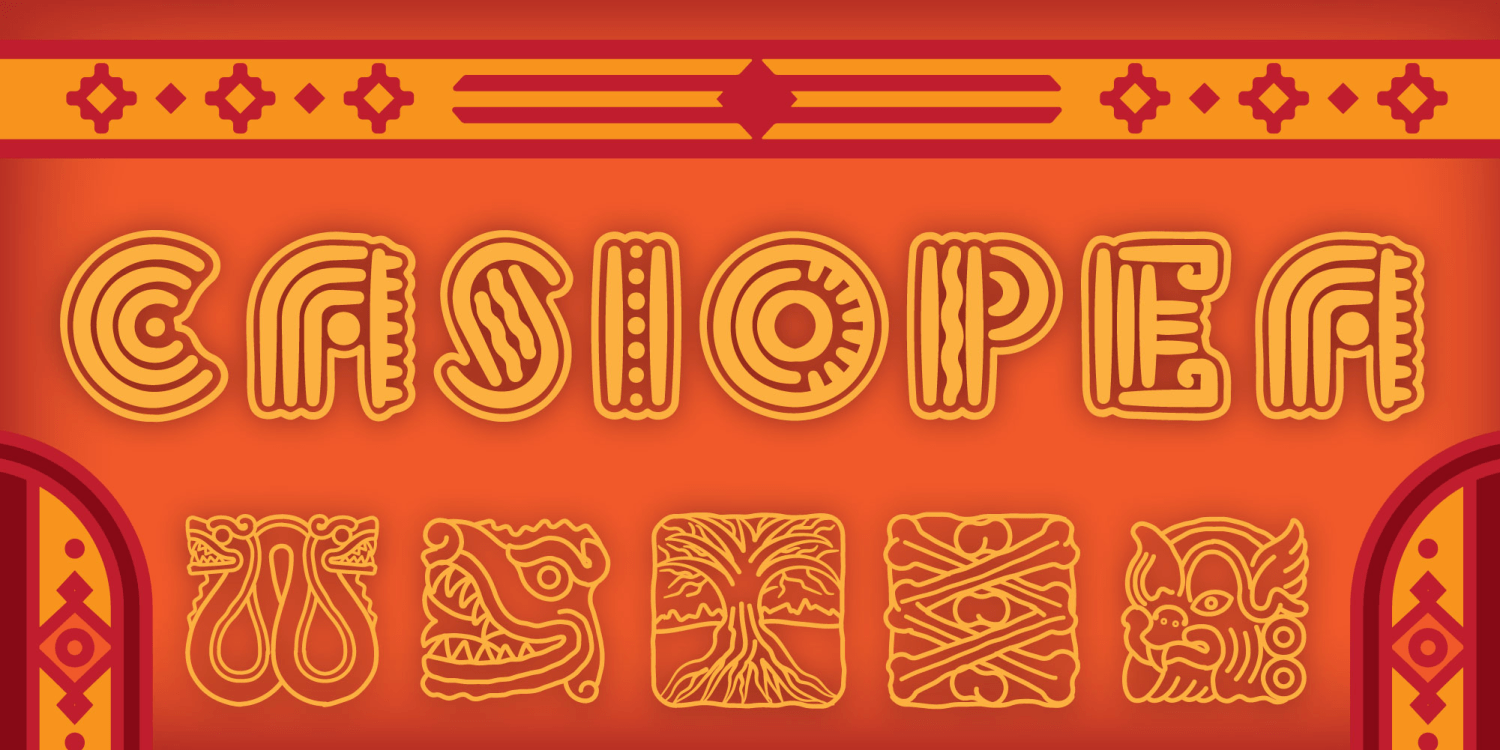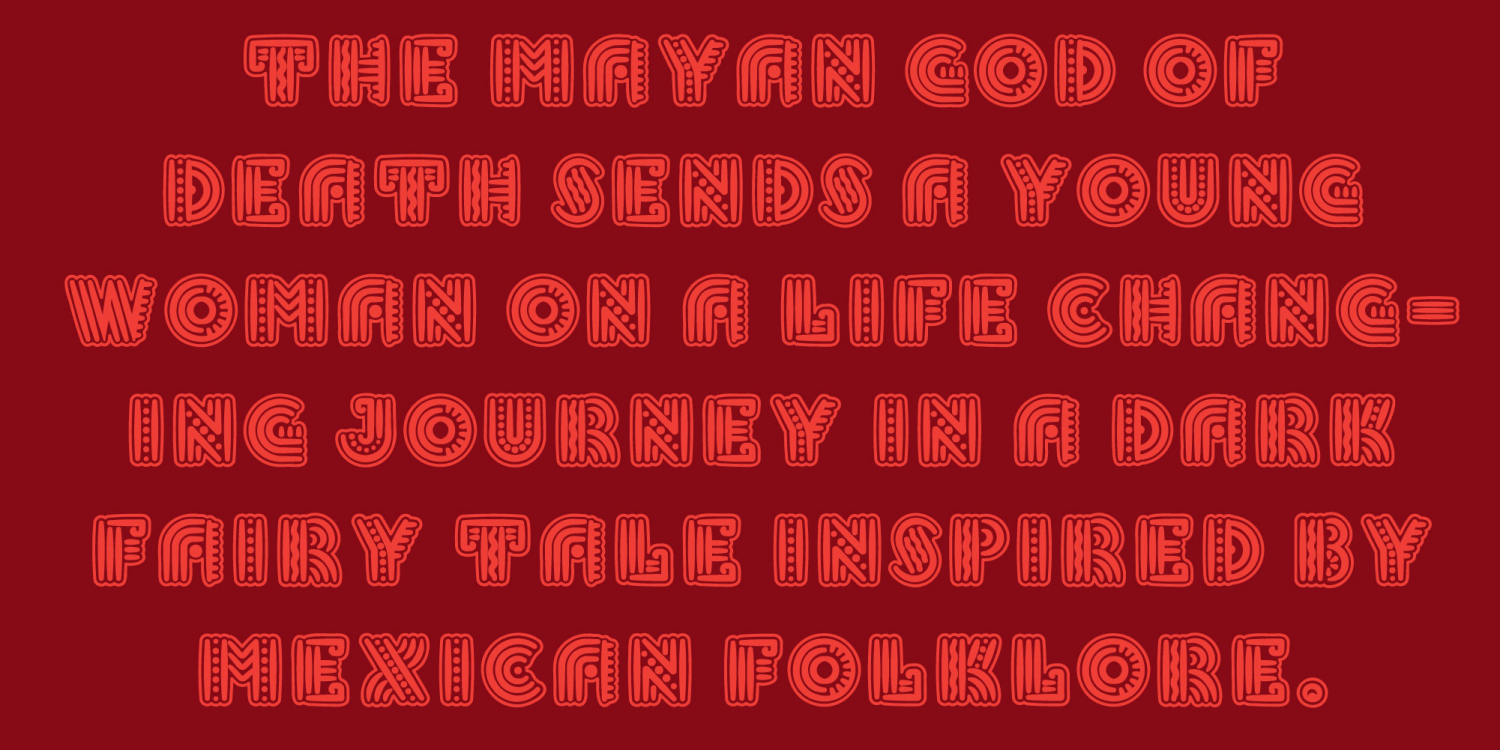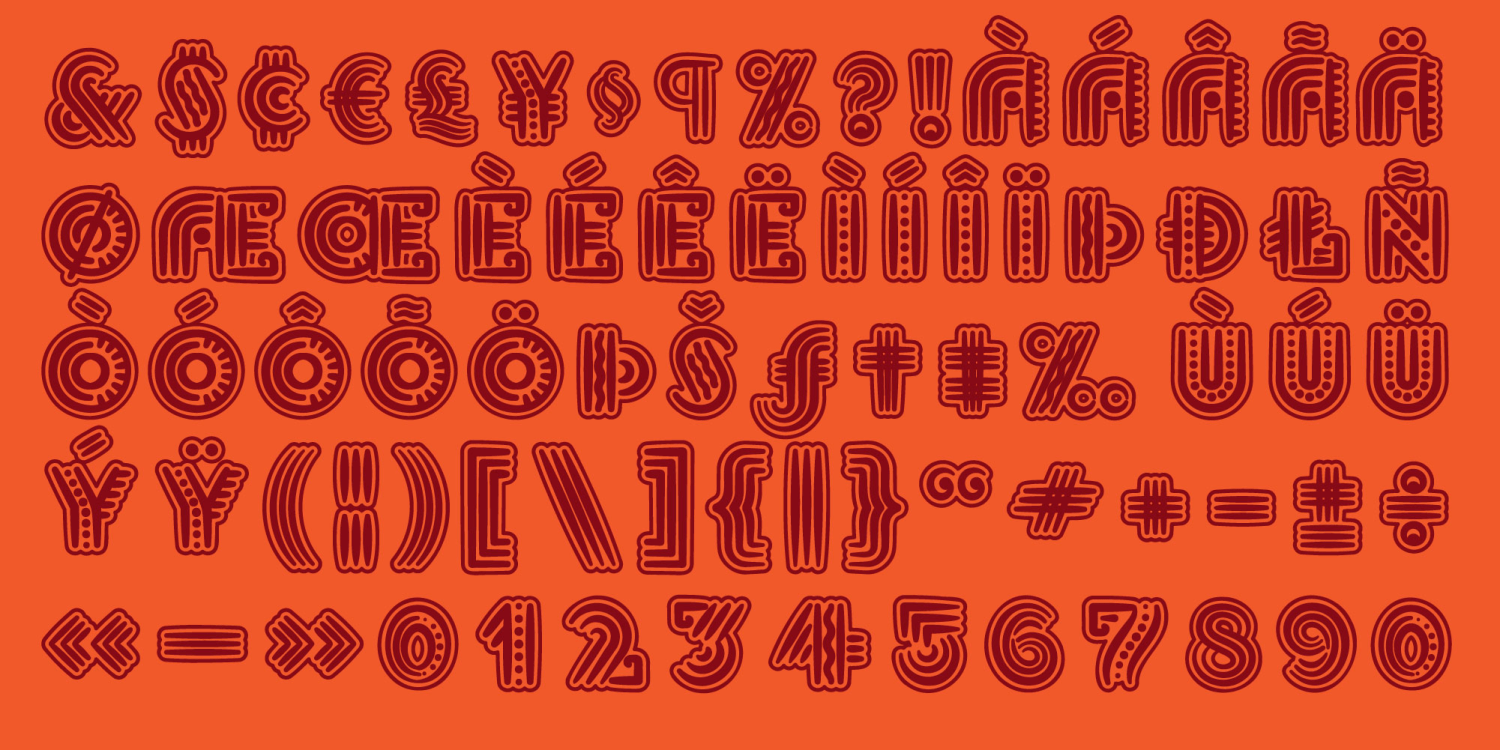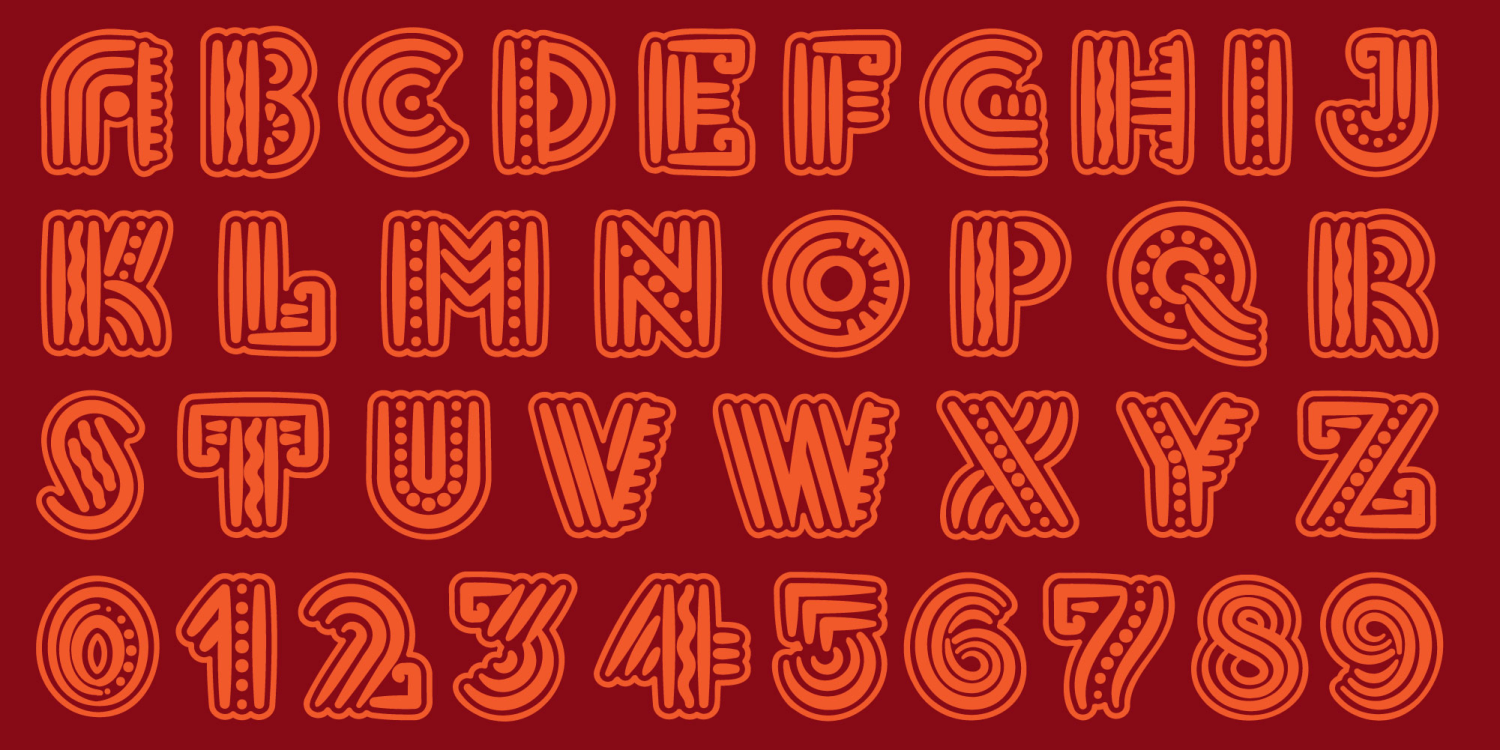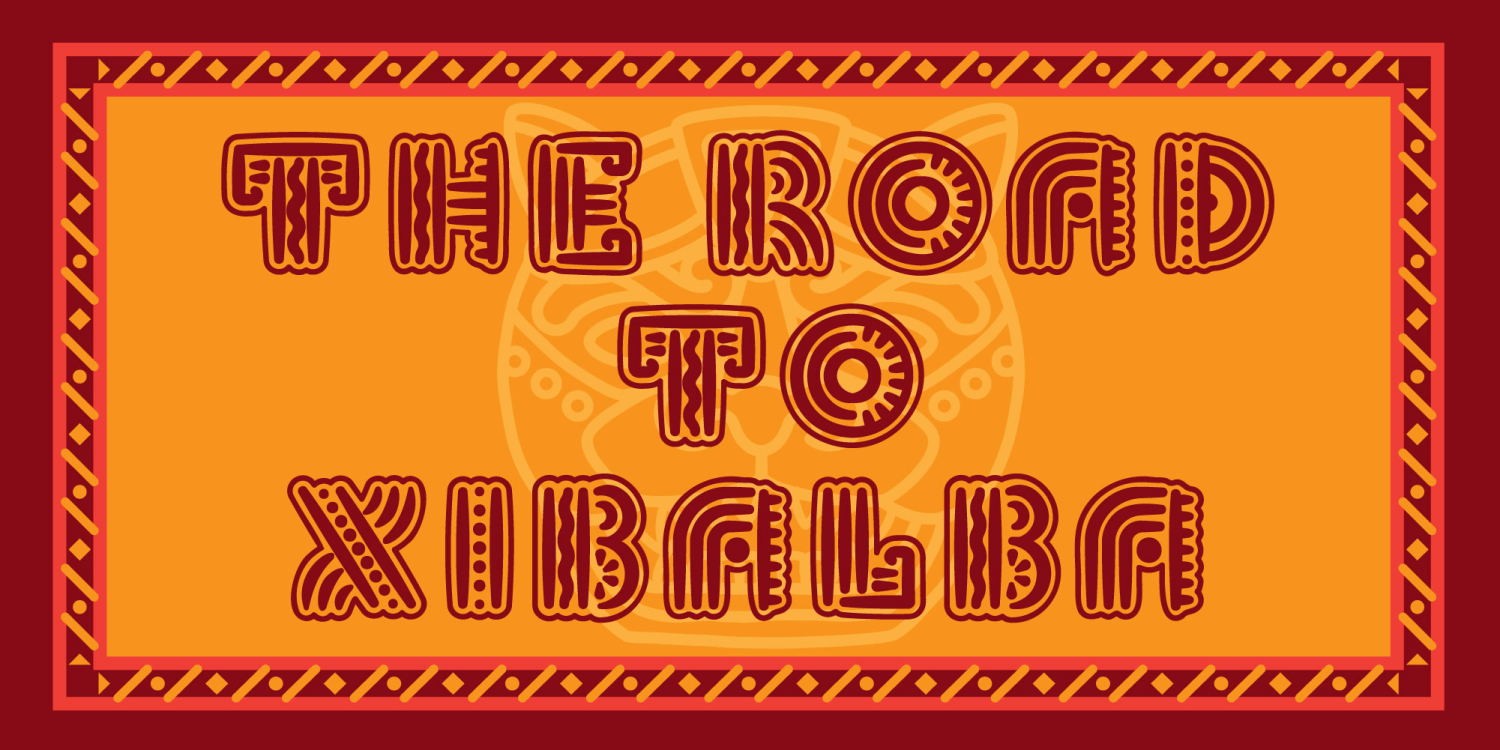
Casiopea
Casiopea is a display font inspired by the intricate and mystical imagery of Mayan mythology. Each letterform embodies the essence of mythical creatures, jaguars, serpents, and celestial beings, with sweeping curves, angular cuts, and carved-like details evoking the textures of ancient stone glyphs.
The font is named after a courageous young girl from a Mexican folktale who journeys to Xibalba, the Mayan underworld, alongside a fallen god seeking redemption. The font mirrors her story, combining elements of traditional Mayan iconography with contemporary design sensibilities, creating a bridge between the ancient and the modern.
Perfect for titles, posters, and branding projects with a mythological or cultural theme, Casiopea commands attention with its unique blend of history, storytelling, and artistry.